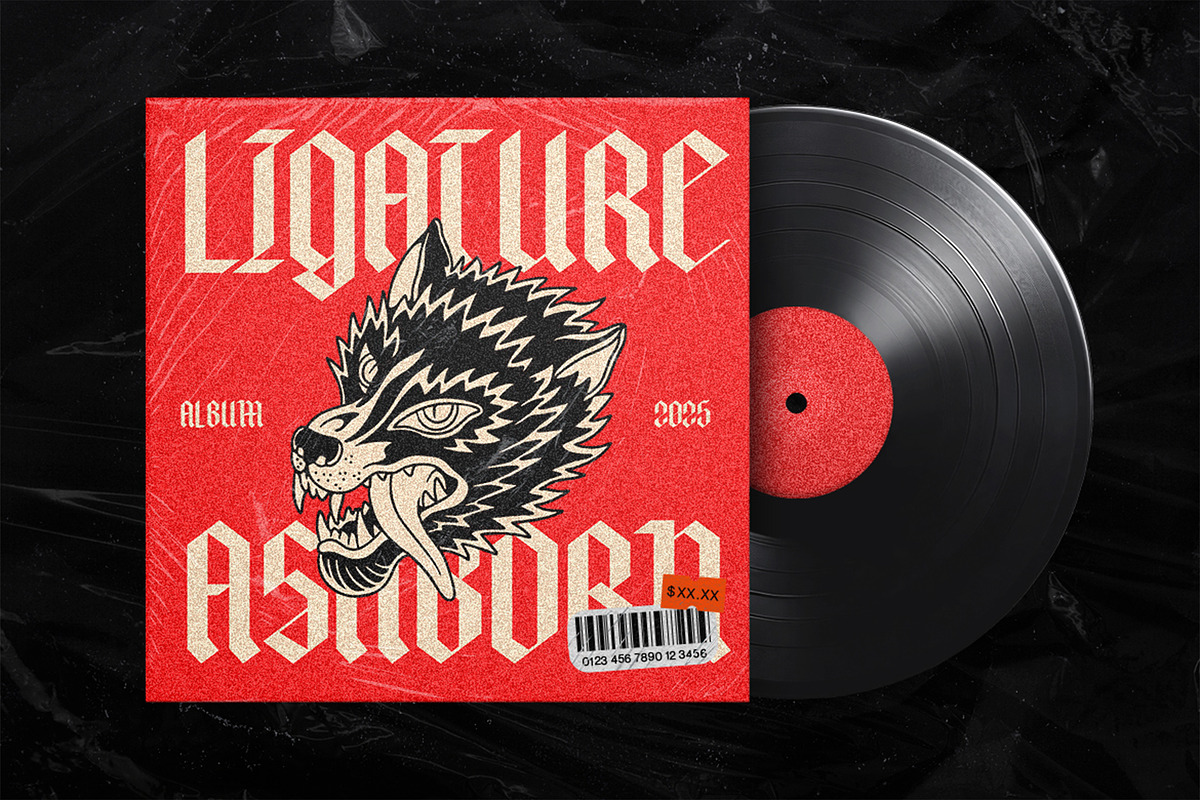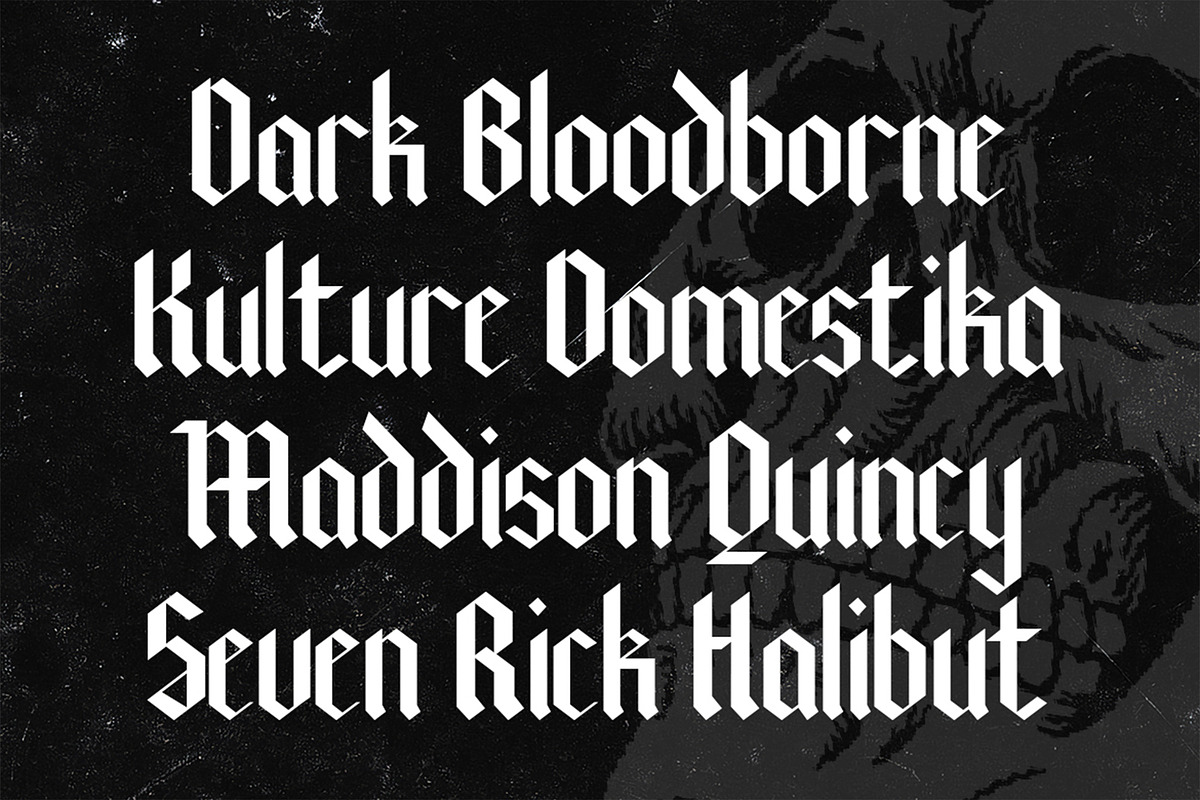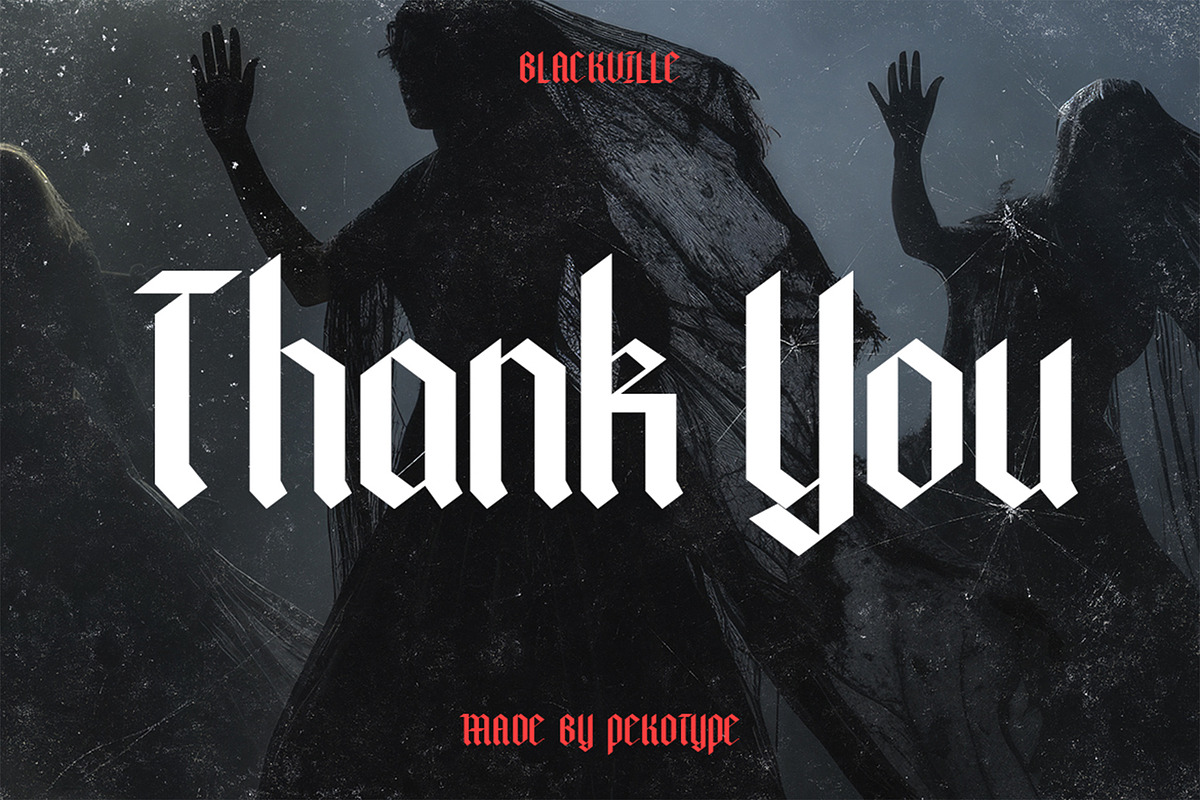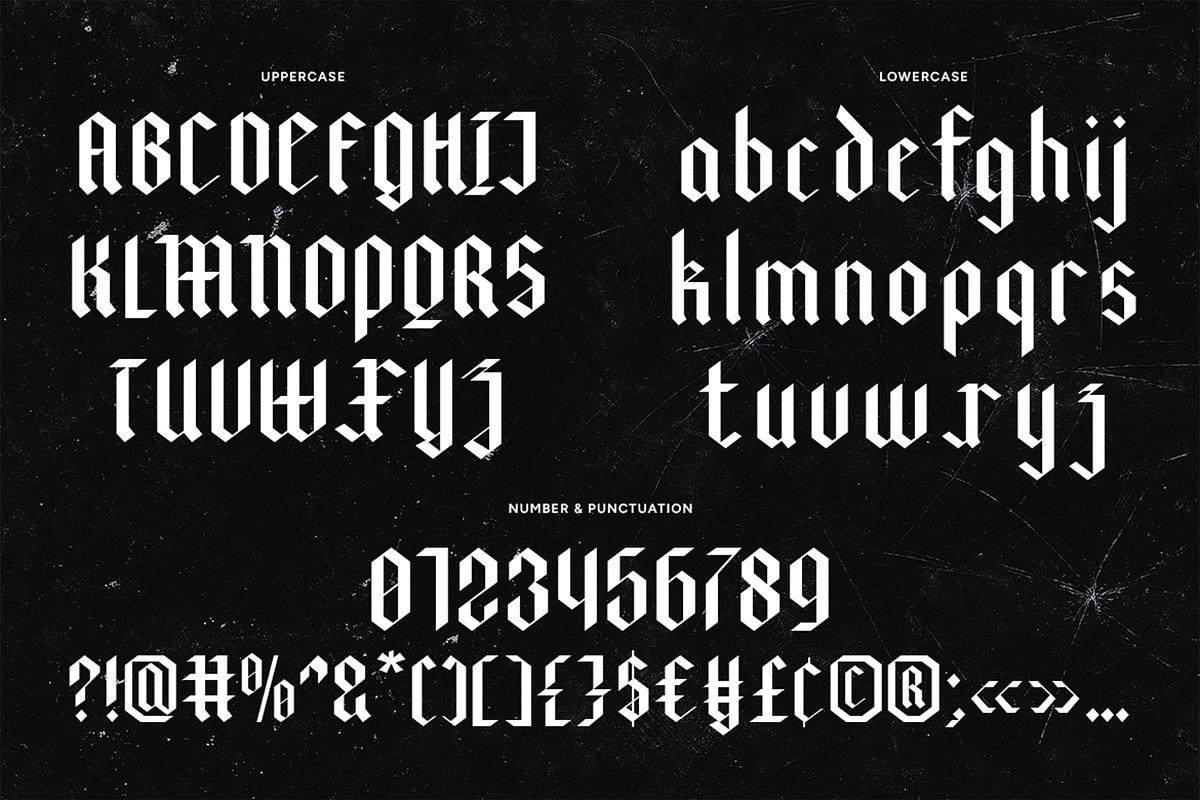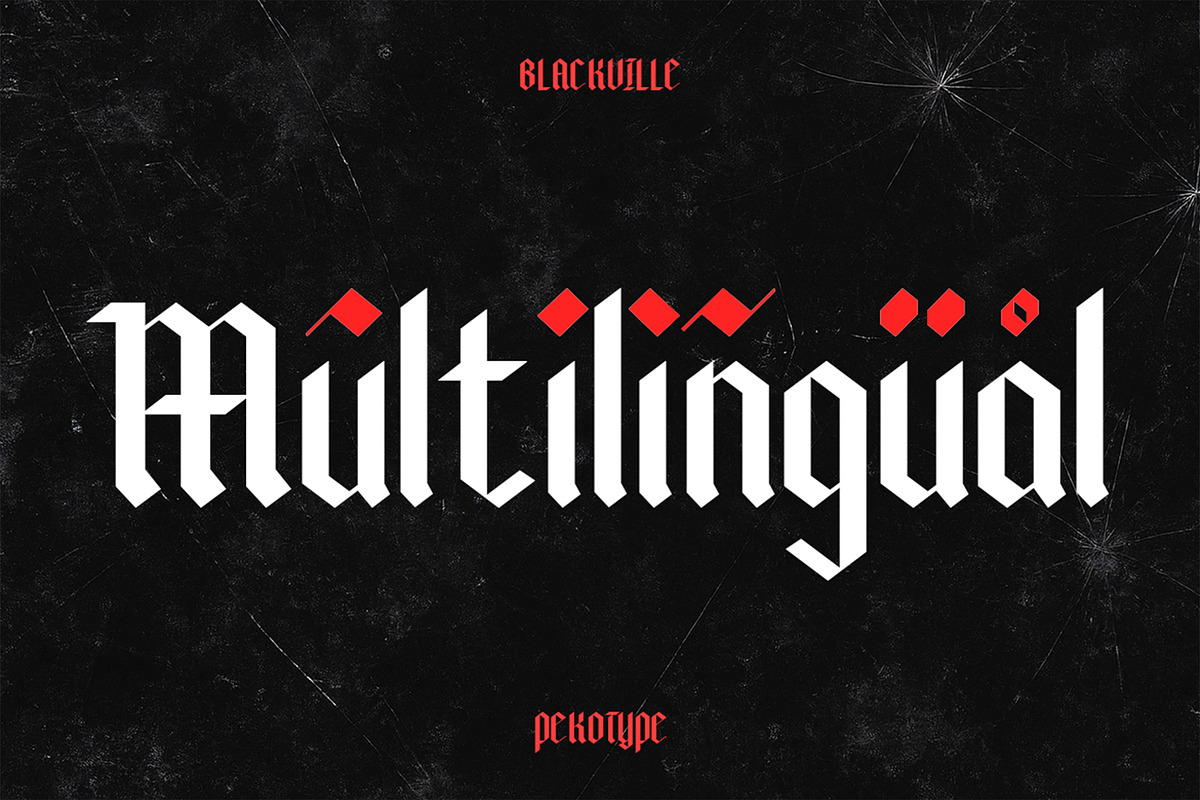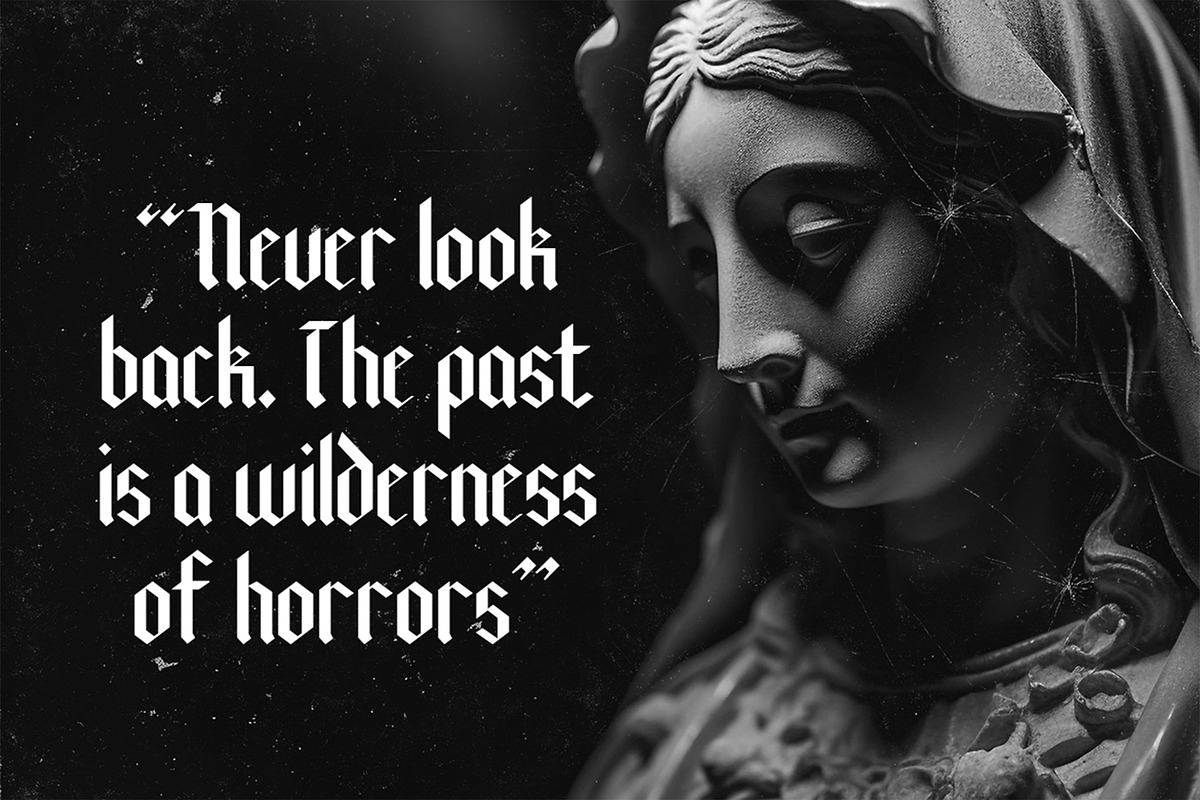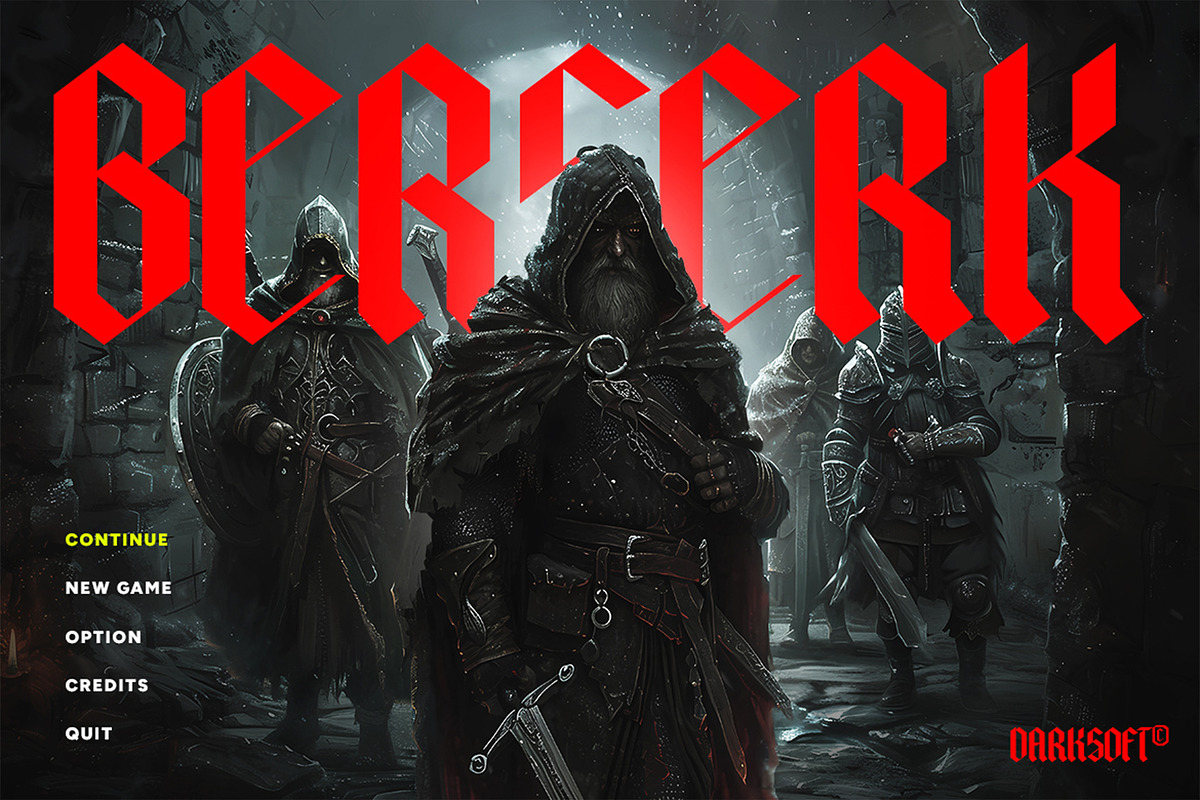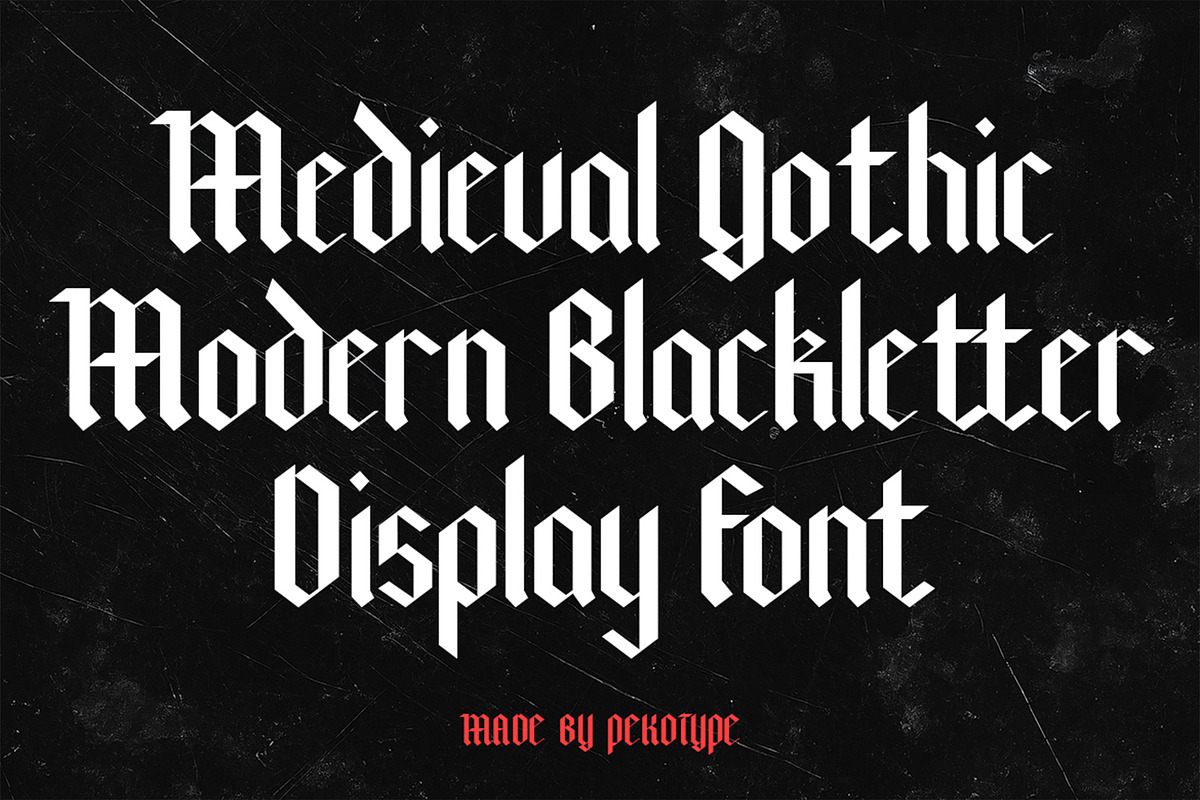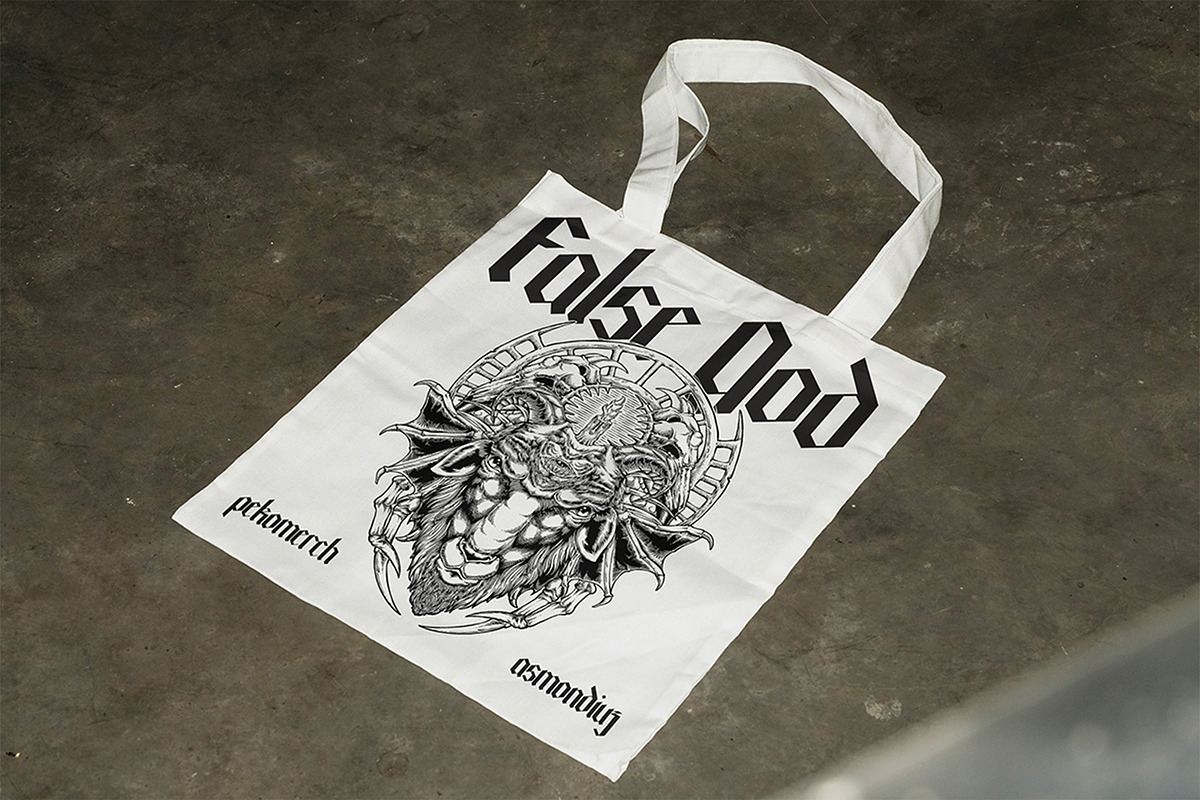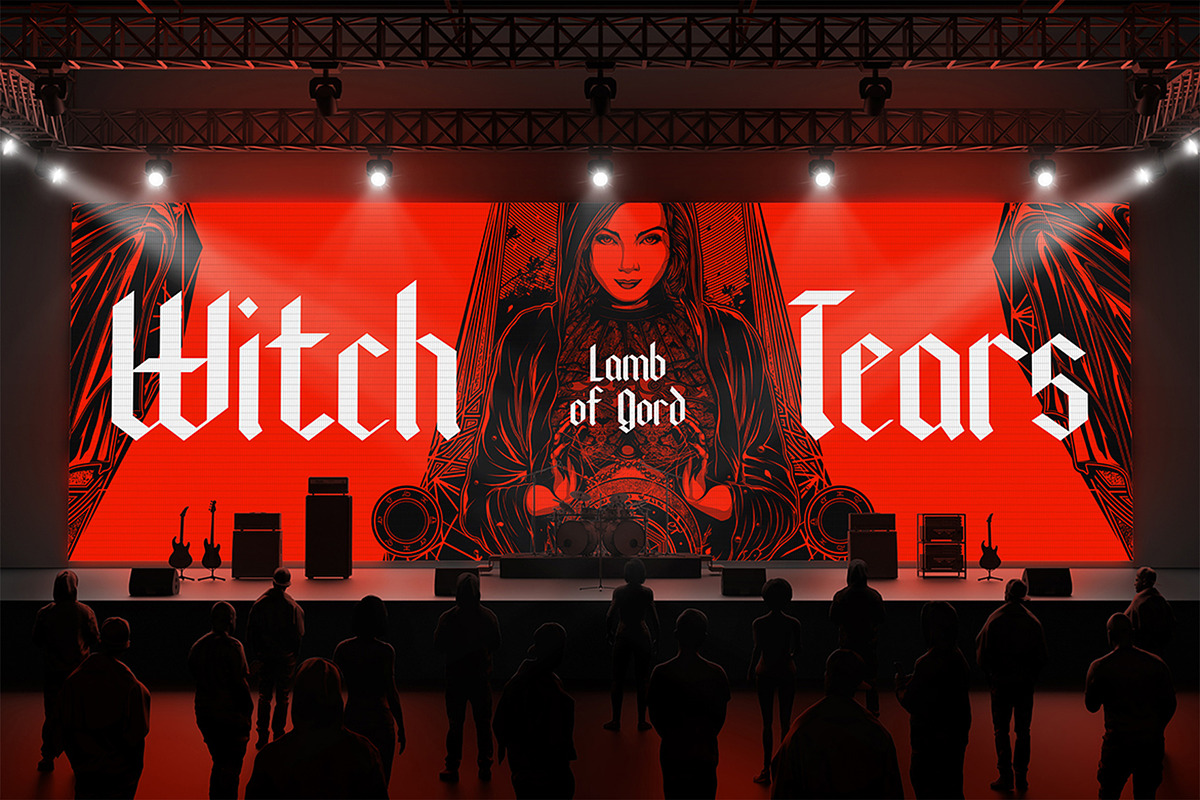
Blackville - Gothic Blackletter Font
BLACKVILLE – A Modern Gothic Blackletter Typeface
Unleash the darkness with BLACKVILLE, a bold gothic blackletter typeface that fuses medieval roots with a modern edge. Designed to command attention, BLACKVILLE brings a unique, aggressive character—perfect for metal and hardcore band logos, game titles, merch design, and bold branding projects.
Crafted with sharp strokes, angular serifs, and a dark, dramatic flair, BLACKVILLE pays tribute to classic blackletter calligraphy while embracing contemporary design trends. Whether you’re designing album covers, signage, or social media graphics, this font delivers the raw power and mystique your visuals demand.
BLACKVILLE is not just a font—it's an attitude. Ideal for brands that dare to be different, for musicians that break boundaries, and for creatives who thrive in the shadows.